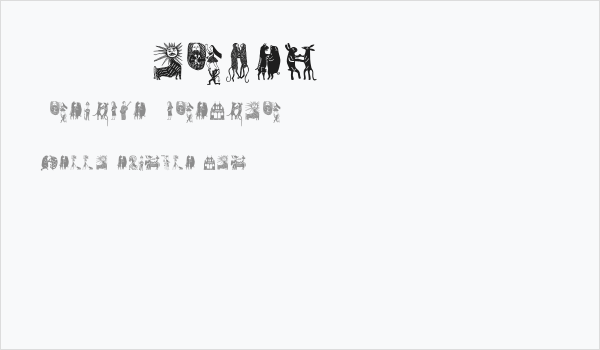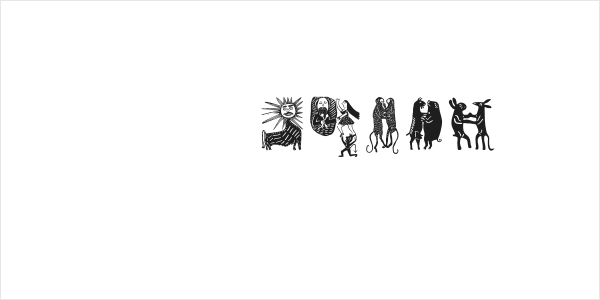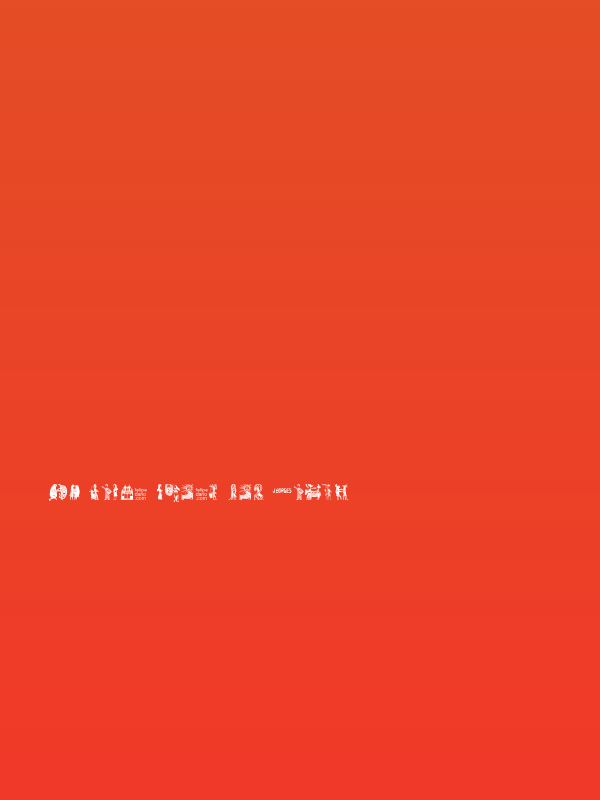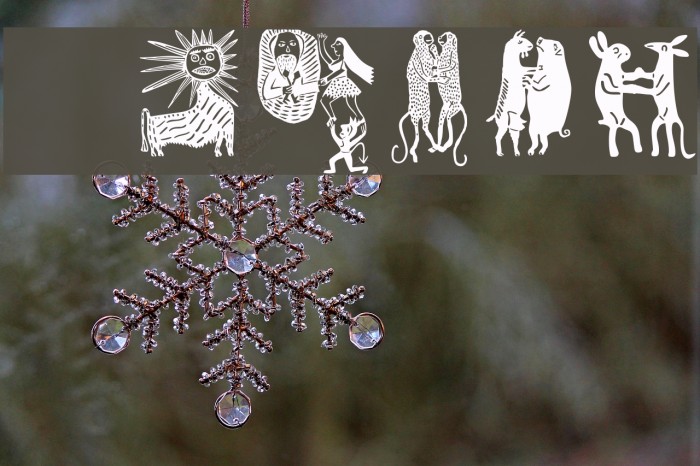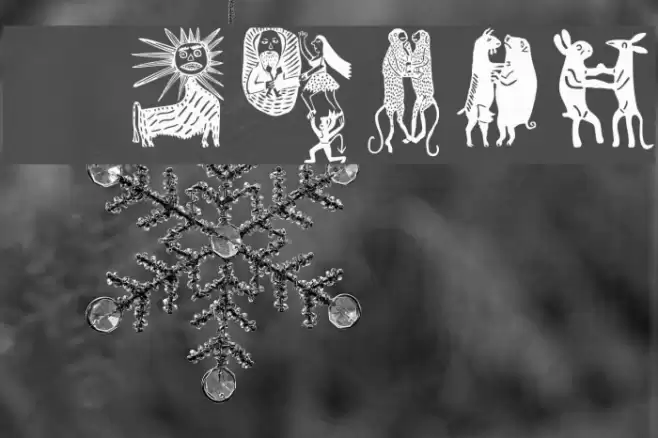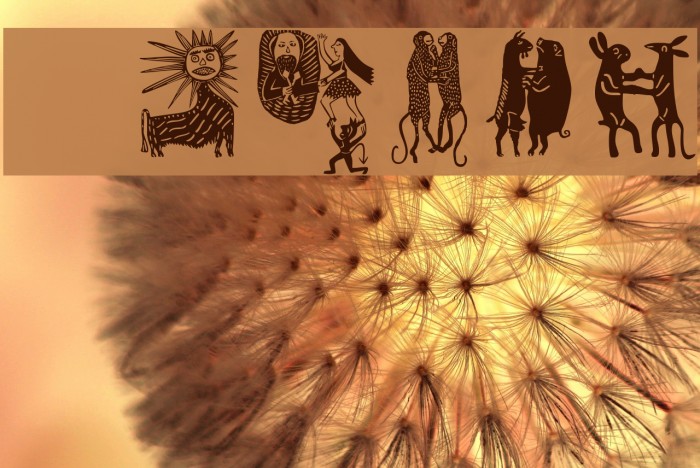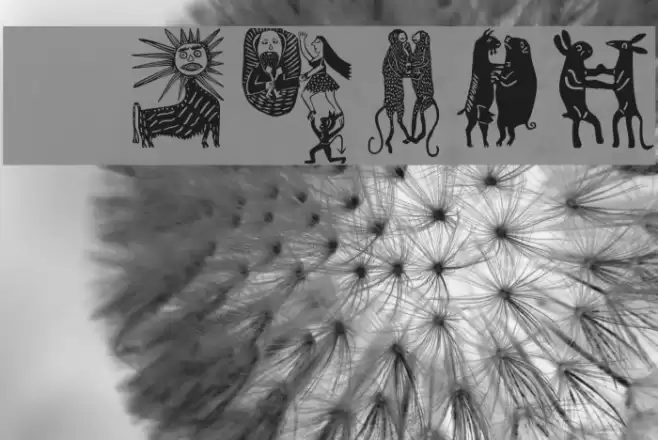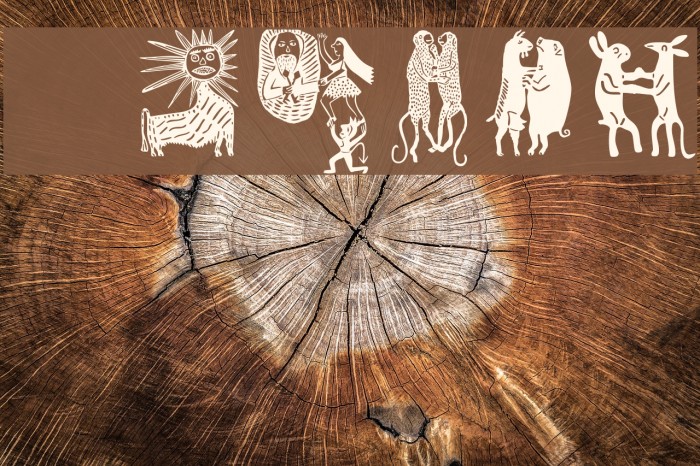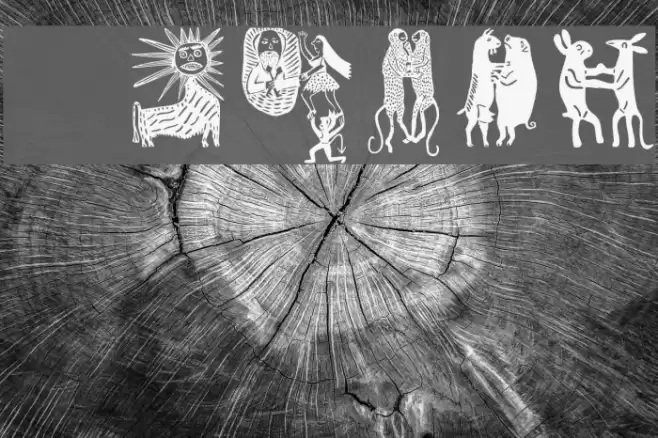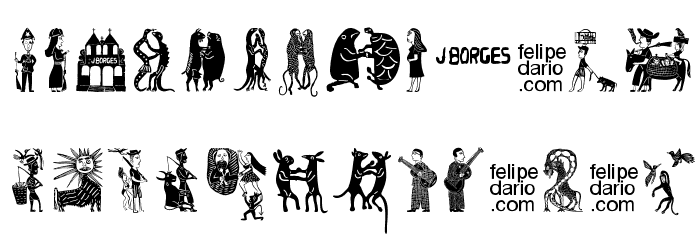
FD J Borges Font
| Область применения | Logos, Posters, Artistic projects |
| Рекомендуемые проекты | Ideal for artistic projects, cultural exhibitions, book covers, posters, and creative branding that seeks a unique and storytelling element. |
FD J Borges